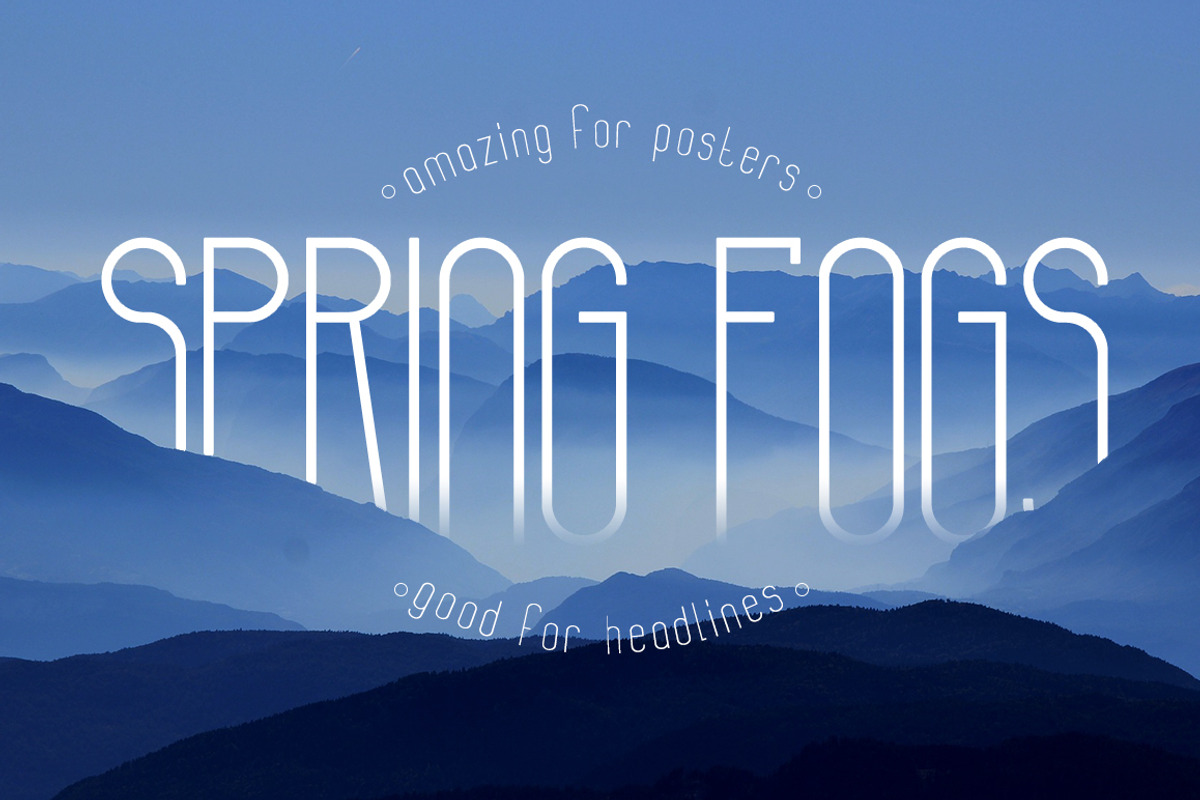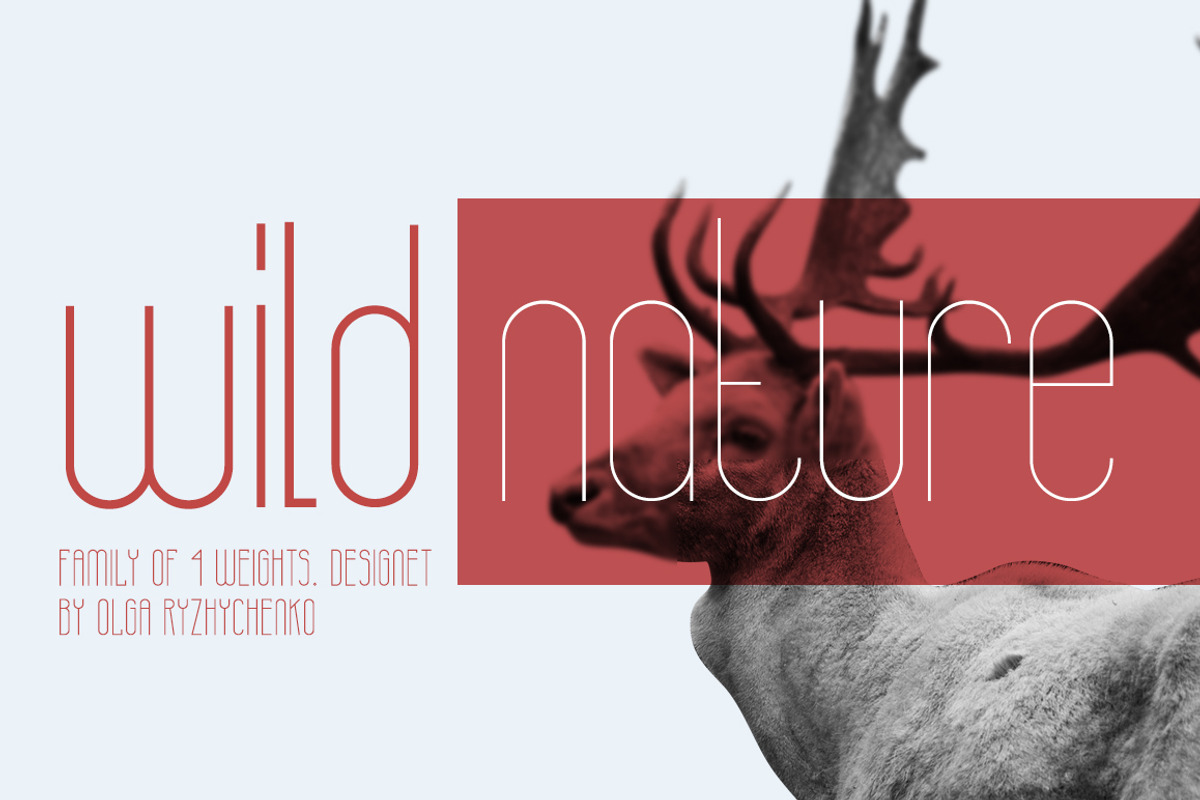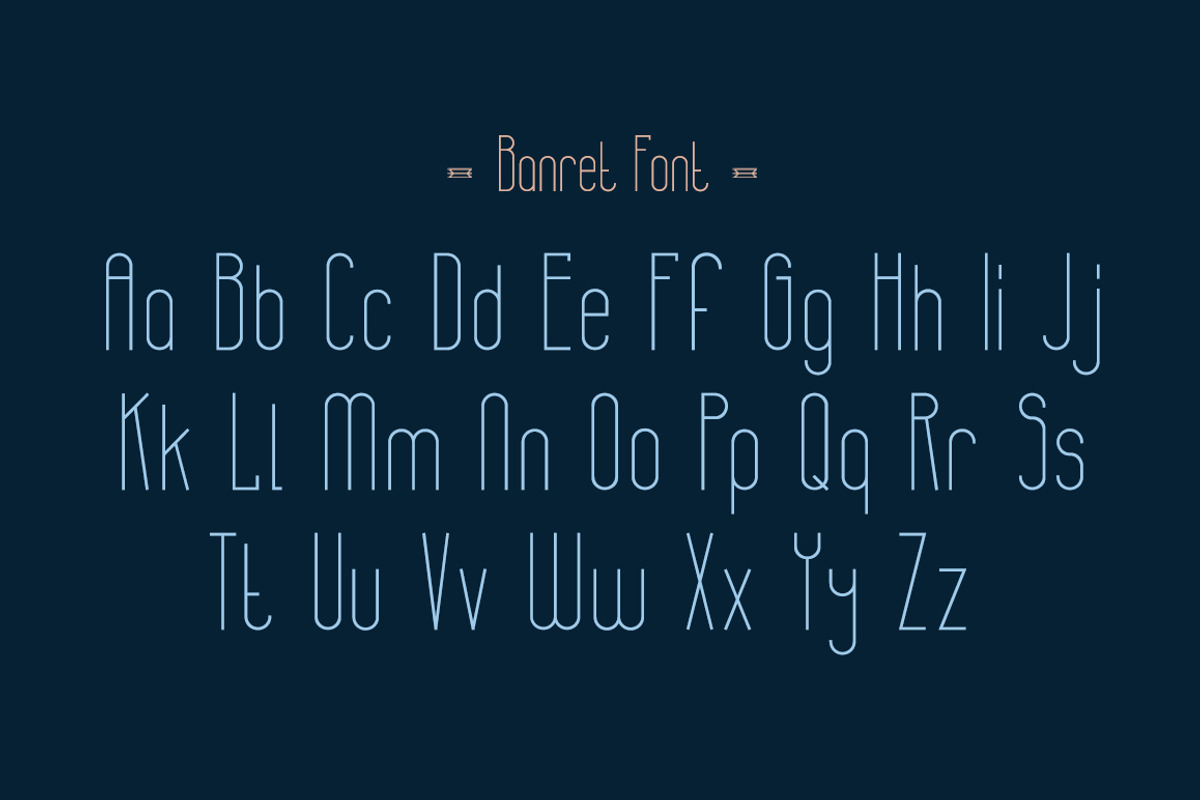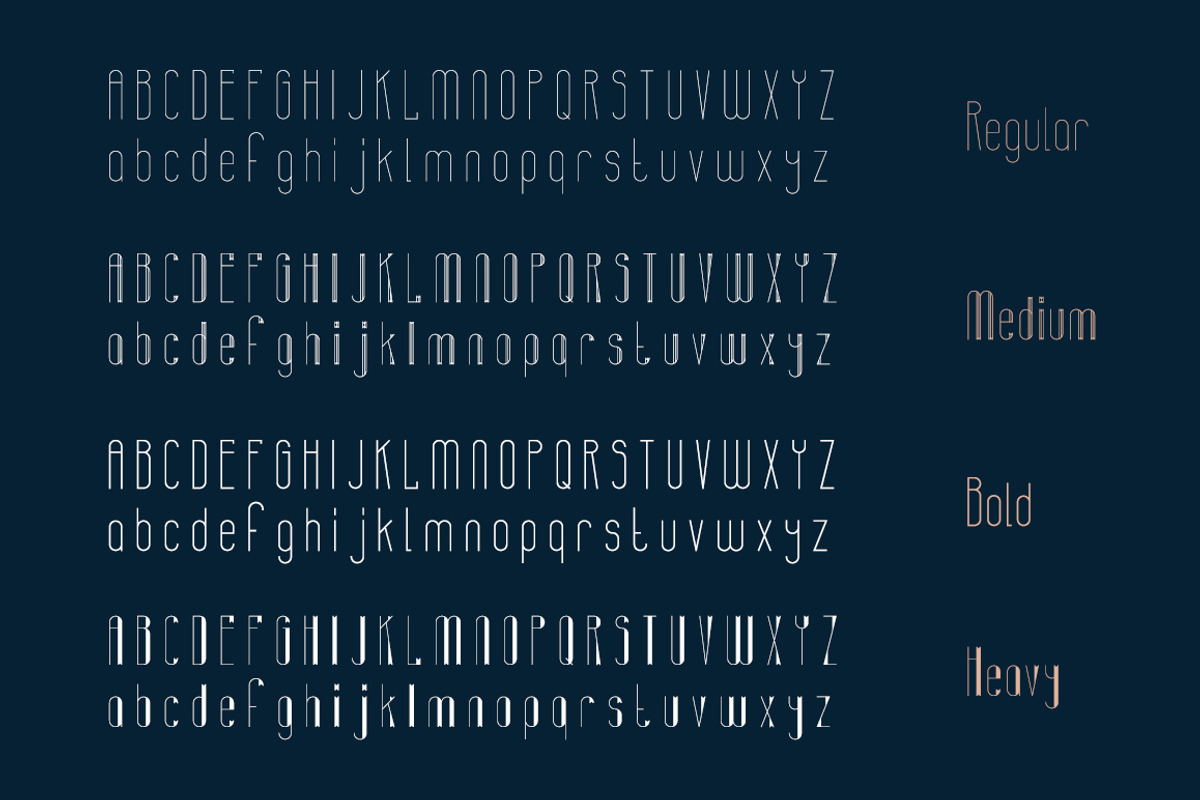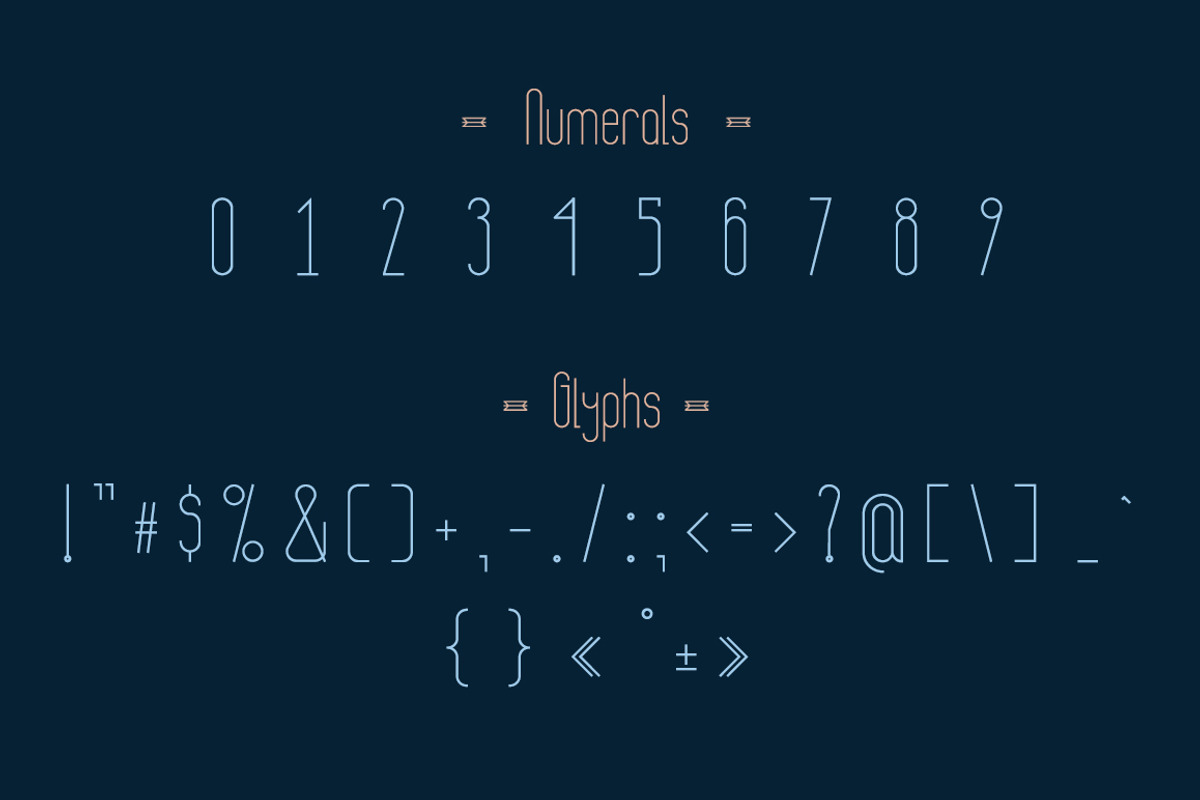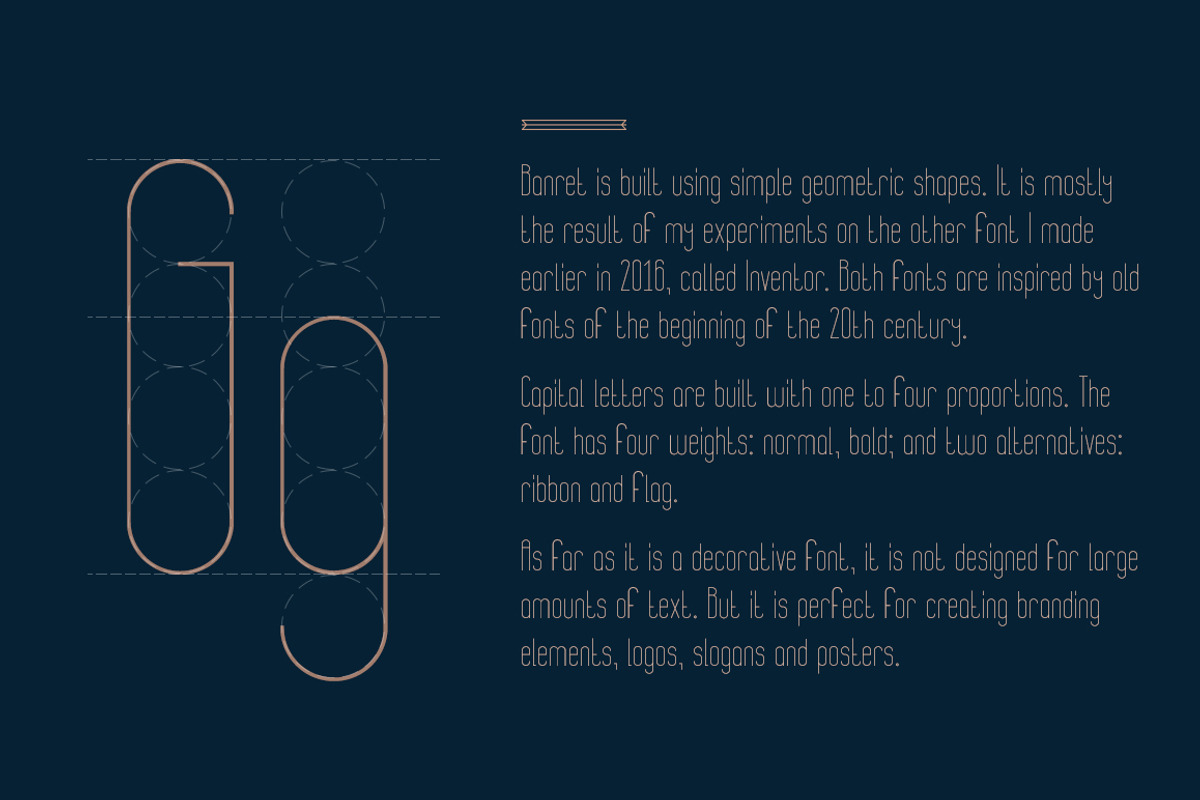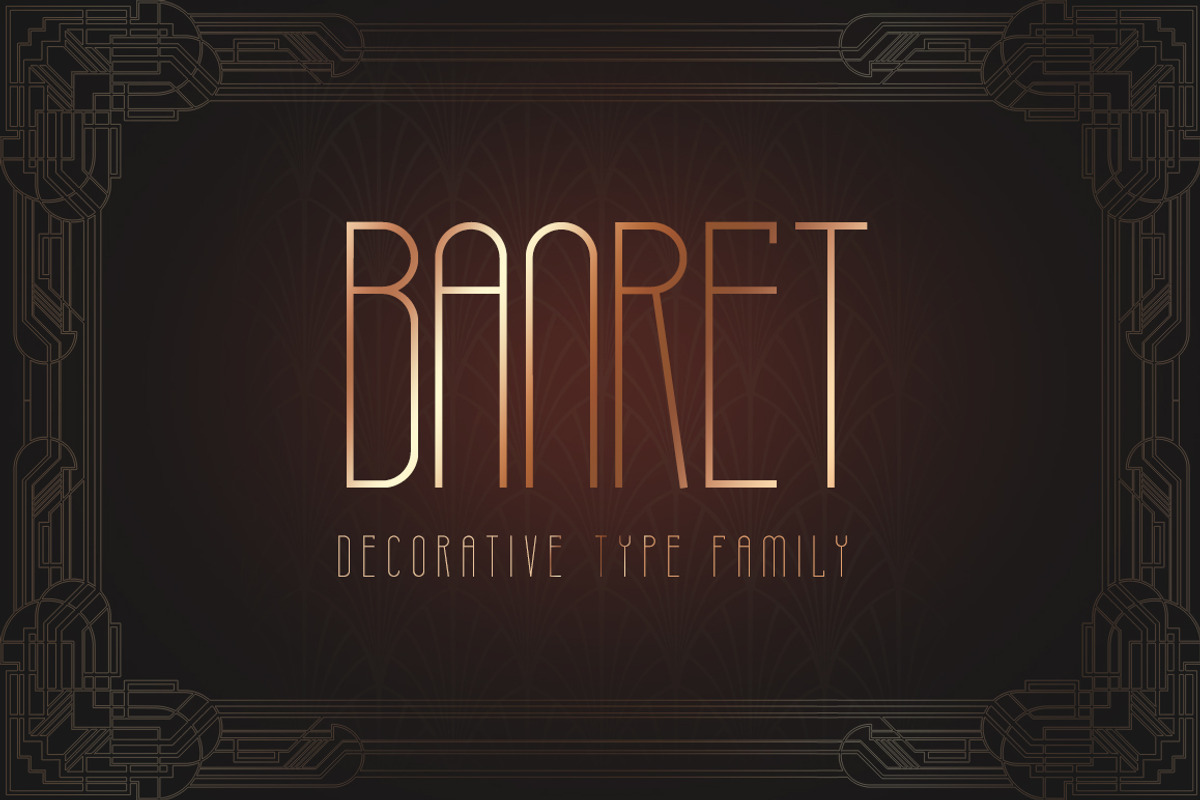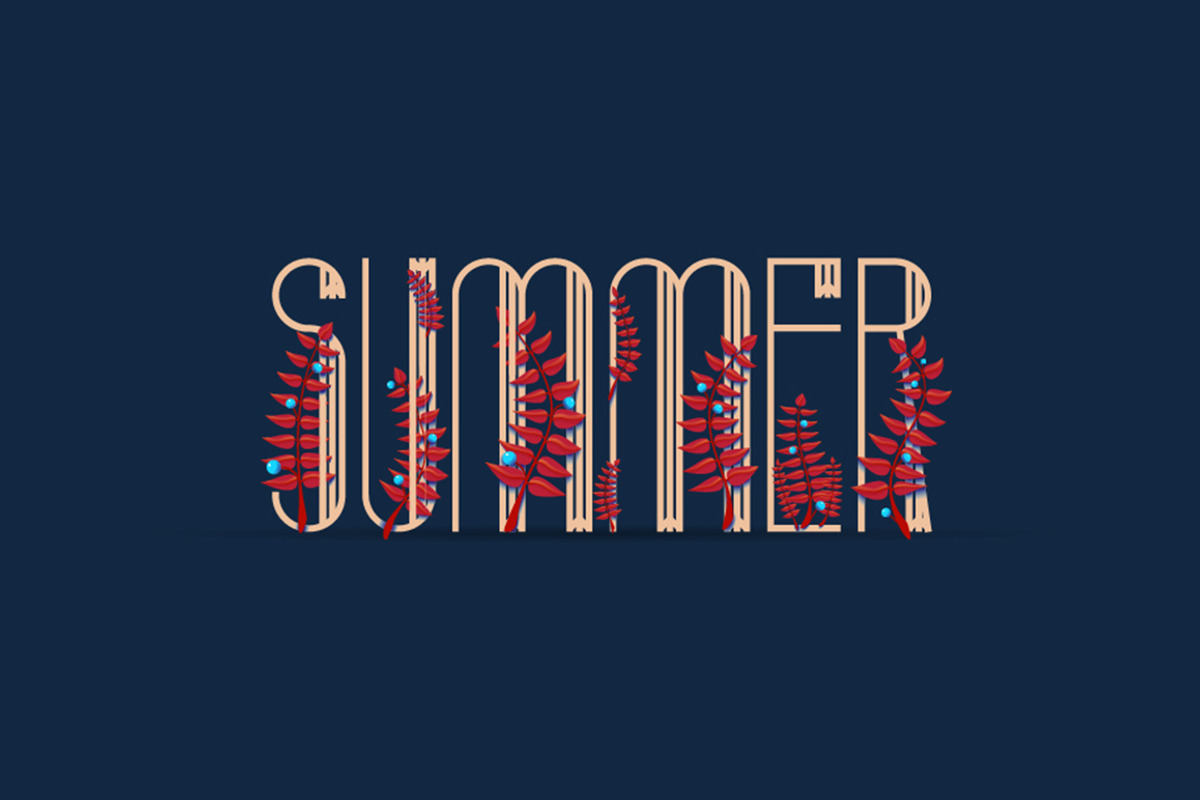
Banret. Font Family
Banret is built using simple geometric shapes. It is mostly the result of my experiments on the other font I made earlier in 2016, called Inventor. Font is inspired by old fonts of the beginning of the 20th century.
Capital letters are built with one to four proportions. The font has four weights: normal, bold; and two alternatives: ribbon and flag.
As far as it is a decorative font, it is not designed for large amounts of text. But it is perfect for creating branding elements, logos, slogans and posters.